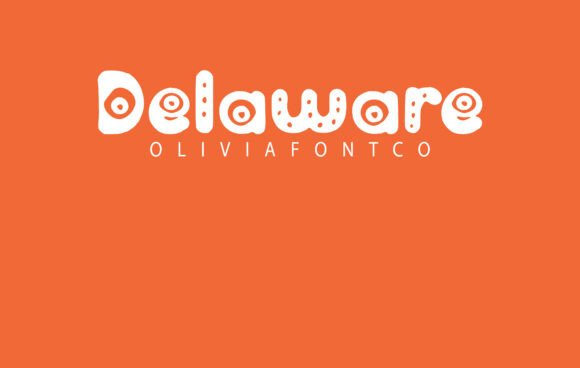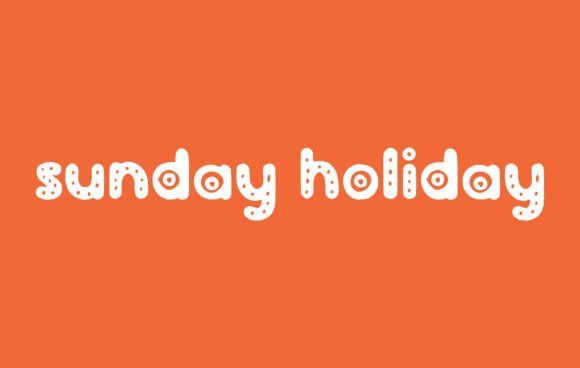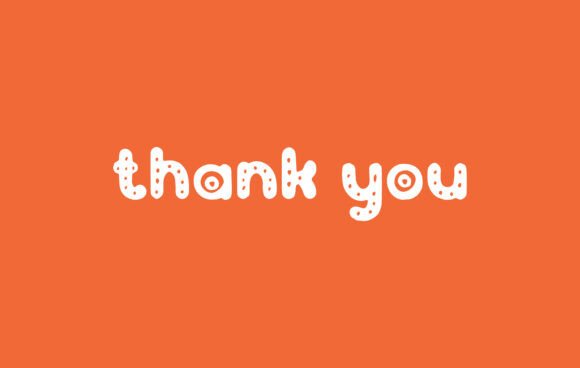
Delaware Font: A Playful Display Font for Cute Social Media Design
About the Delaware Font
Elevate your designs with Delaware Font, a font that combines sophistication with readability. Delaware is an authentic font with a romantic touch. Expertly designed to be a true favorite, this font has the potential to take your creative ideas to the highest level
Delaware’s romantic touch makes it ideal for projects requiring a touch of elegance and sophistication, such as wedding invitations, branding for luxury goods, or high-end magazine headlines. Its legibility works well in short bursts of text, but avoid using it for large blocks of body copy or UI elements where readability is paramount.
For optimal impact, pair Delaware with a clean sans-serif like Open Sans for body text to maintain visual balance. Alternatively, a contrasting geometric sans-serif provides a modern edge, while a classic serif font adds a touch of timeless sophistication.
The font’s overall personality is refined and romantic, yet approachable. It’s best suited for brands that project a sense of timeless quality and subtle charm. Avoid pairing it with overly playful or excessively bold fonts; the goal is to complement, not compete, with its inherent elegance.
Delaware Font Usage Examples
Delaware Font Example